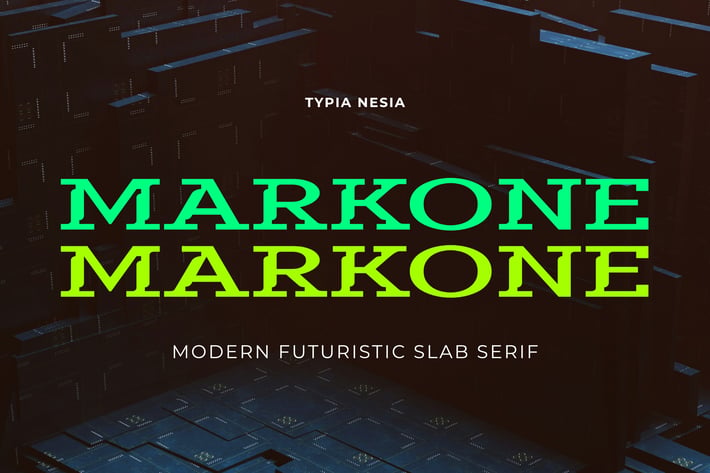
Markone - Modern Slab Serif Ink-Trap Display Font
Markone - Modern Slab Serif Ink-Trap Display Font - Bold Expanded & Futuristic Digital Typeface
Markone is a Display Slab Serif Font designed to make a bold and confident statement. With its strong, structured letterforms and distinctive slab-serif details, Markone brings a modern futuristic appeal to any design project. Its robust and versatile style ensures both readability and impact, making it perfect for standout typography, such as logos, branding, posters, headlines, book covers, packaging, editorial design, signage, game design, advertising and anymore. Comes with uppercase and lowercase letters, punctuation, numerals, ligatures, and alternates, giving you creative flexibility for unique typographic compositions. Additionally, with multilingual support, Markone allows your designs to communicate globally without limitations. Designed for strong, bold, and impactful typography, Markone is perfect for designers who need a font that exudes confidence, modern, and versatility.